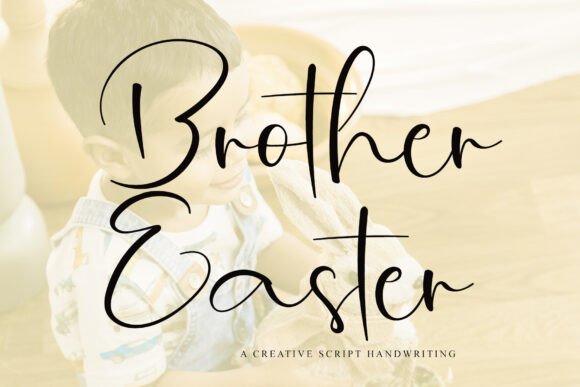
Introducing Brother Easter Font: A Modern and Friendly Handwritten Font
In the world of typography, fonts play a crucial role in conveying messages, expressing emotions, and creating visual identities. Among the numerous fonts available, Brother Easter font stands out as a modern and friendly handwritten font that can elevate any design project. In this article, we’ll explore the features, benefits, and uses of Brother Easter font, and why it’s a valuable addition to your font library.
What is Brother Easter Font?
Brother Easter font is a beautifully crafted, highly detailed handwritten font that exudes a sense of warmth and approachability. Its modern and friendly design makes it an excellent choice for a wide range of applications, from digital marketing materials to print designs, and even personal projects. The font’s neat and clean lines ensure that it remains legible, even at smaller sizes, making it a versatile option for various design needs.
Key Features of Brother Easter Font
- Modern and Friendly Design: Brother Easter font boasts a contemporary and amiable design that can add a touch of personality to your creations.
- Highly Detailed: The font’s intricate details and smooth lines make it a standout choice for designs that require a high level of sophistication.
- Neatly Crafted: The font’s clean and organized structure ensures that it remains easy to read, even in larger blocks of text.
- Versatile: Brother Easter font can be used for a wide range of applications, including headings, titles, and body text.
Benefits of Using Brother Easter Font
Adding Brother Easter font to your font library can bring numerous benefits to your design projects. Some of the advantages of using this font include:
- Enhanced Visual Appeal: The font’s modern and friendly design can add a touch of elegance and sophistication to your creations.
- Improved Readability: Brother Easter font’s clean lines and neat structure ensure that your text remains easy to read, even at smaller sizes.
- Increased Versatility: The font’s versatility makes it an excellent choice for a wide range of applications, from digital marketing materials to print designs.
- Unique Identity: Brother Easter font can help you establish a unique visual identity for your brand or project, setting you apart from others.
Uses of Brother Easter Font
Brother Easter font is an incredibly versatile font that can be used for a wide range of applications, including:
- Digital Marketing Materials: Use Brother Easter font to create eye-catching social media graphics, email headers, and website titles.
- Print Designs: The font is perfect for print designs, such as brochures, flyers, posters, and business cards.
- Personal Projects: Brother Easter font can be used for personal projects, such as scrapbooking, journaling, and crafting.
- Branding and Identity: Use the font to create a unique visual identity for your brand, including logos, letterheads, and packaging.
Tips for Using Brother Easter Font
To get the most out of Brother Easter font, here are some tips to keep in mind:
- Use it as a Headline Font: Brother Easter font is perfect for headlines and titles, where its modern and friendly design can shine.
- Pair it with Other Fonts: Experiment with pairing Brother Easter font with other fonts to create a unique and visually appealing combination.
- Adjust the Size and Color: Play around with different sizes and colors to find the perfect combination for your design.
- Use it Consistently: Use Brother Easter font consistently throughout your design project to establish a cohesive visual identity.
In conclusion, Brother Easter font is a modern and friendly handwritten font that can elevate any design project. Its highly detailed and neatly crafted design makes it a valuable addition to your font library. With its versatility, legibility, and unique visual appeal, Brother Easter font is perfect for a wide range of applications, from digital marketing materials to print designs and personal projects. By incorporating Brother Easter font into your design workflow, you can add a touch of elegance and sophistication to your creations and establish a unique visual identity for your brand or project.
- What is Brother Easter font? Brother Easter font is a modern and friendly handwritten font that is highly detailed and neatly crafted.
- What are the benefits of using Brother Easter font? The benefits of using Brother Easter font include enhanced visual appeal, improved readability, increased versatility, and a unique identity.
- What are the uses of Brother Easter font? Brother Easter font can be used for digital marketing materials, print designs, personal projects, and branding and identity.
- How can I get the most out of Brother Easter font? To get the most out of Brother Easter font, use it as a headline font, pair it with other fonts, adjust the size and color, and use it consistently throughout your design project.